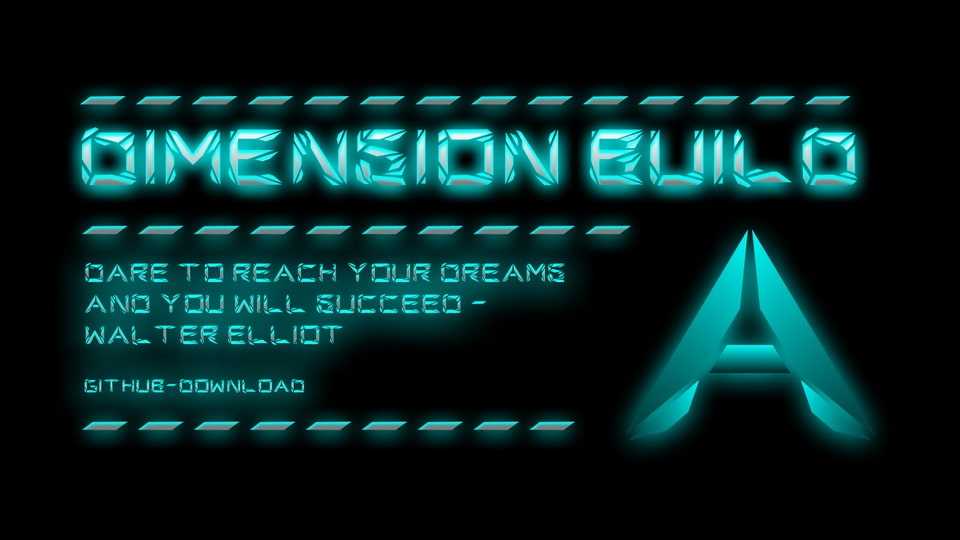
Download Dimension Build font, a display typeface designed with a cool style to convey messages, as cool designs always give a sense of the future. The design intention of Dimension Build font is to “build one’s own world and ideas.”
Designer: Jiangxue Team